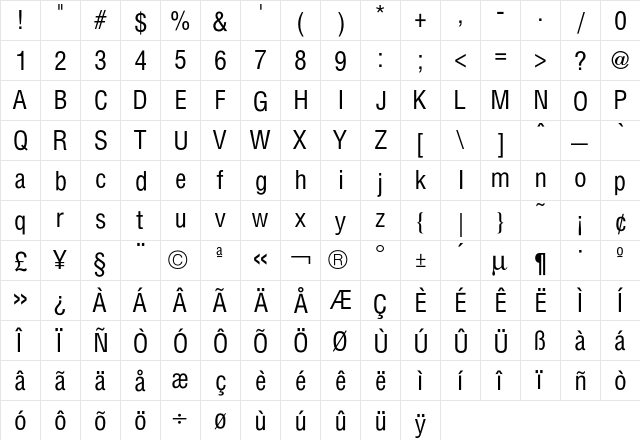
Hallmarke CondBook
Design Context for Hallmarke Typeface
Hallmarke takes a measured approach to typography — its balanced proportions and neutral character make it a reliable workhorse for both digital and print work. The condensed width makes it efficient for tight spaces without sacrificing legibility.